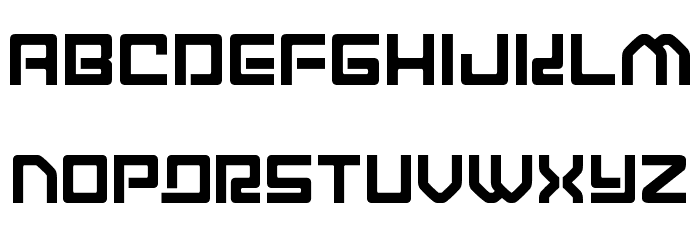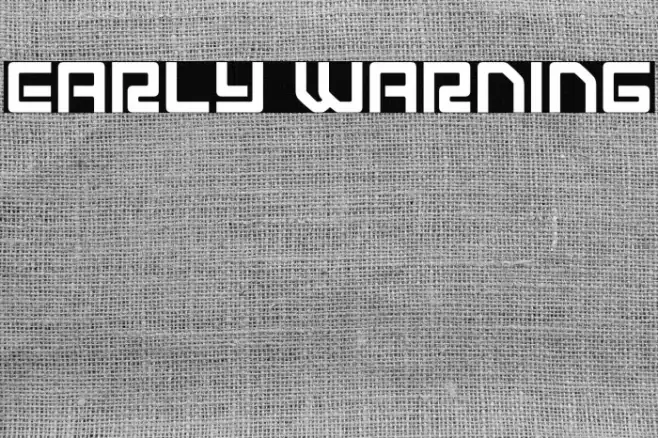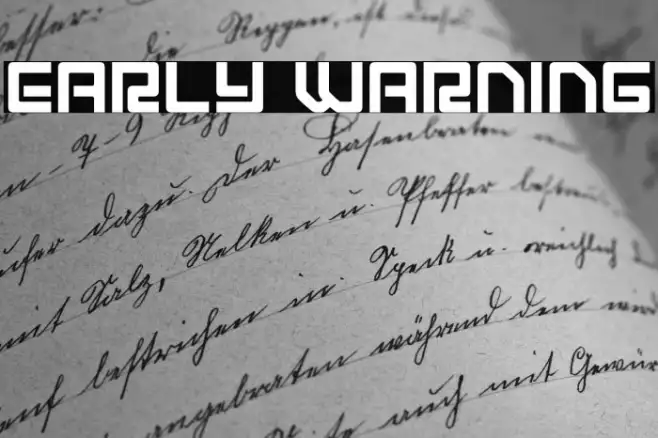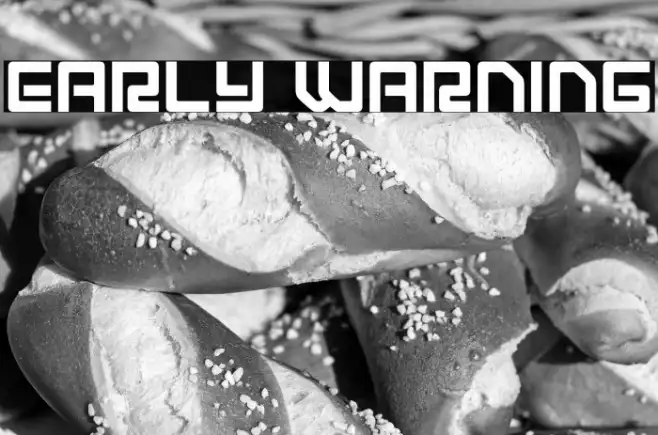
Early Warning Font
This font features a bold and futuristic design with geometric shapes and a strong presence. The characters are constructed with thick lines and sharp angles, giving it a modern and industrial feel. The uppercase and lowercase letters maintain a consistent style, with a unique approach to certain characters such as 'G', 'J', and 'Q'. The numerals are equally bold, ensuring readability and impact. Special characters are designed to match the overall aesthetic, making this font suitable for a variety of creative applications. Its distinct style makes it ideal for projects that require a strong visual identity.
A bold, futuristic font with geometric shapes and strong lines.
- Proposed Projects: Ideal for technology branding, sci-fi themed designs, video game interfaces, and modern advertising.